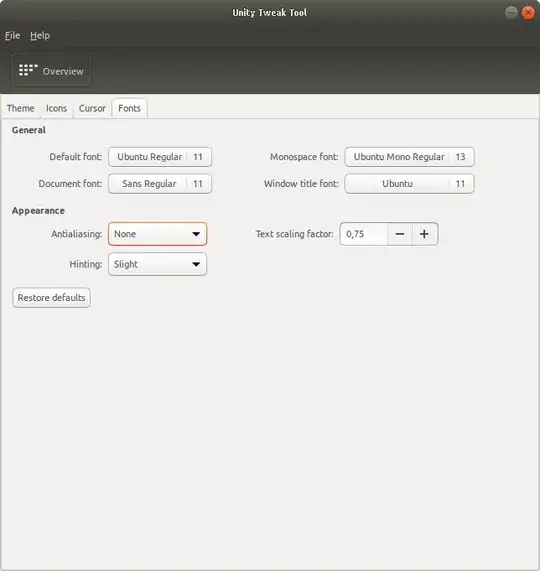
What program or configuration is responsible for making fonts sharp and clear?
Both systems, Microsoft's ClearType and FreeType, use
Subpixel Rendering, which utilises the RGB subpixels on your TFT display to make the glyphs appear sharper and improve their form.
One important difference is that Windows tries much harder to fit the font into 'the pixel grid', which is why it looks 'sharper', at the expense of the glyphs' contours:
ClearType also uses very heavy font hinting to force the font to fit into the pixel grid. This increases edge contrast and readability of small fonts at the expense of font rendering fidelity and has been criticised by graphic designers for making different fonts look similar.
from Wikipedia's ClearType
One approach is:
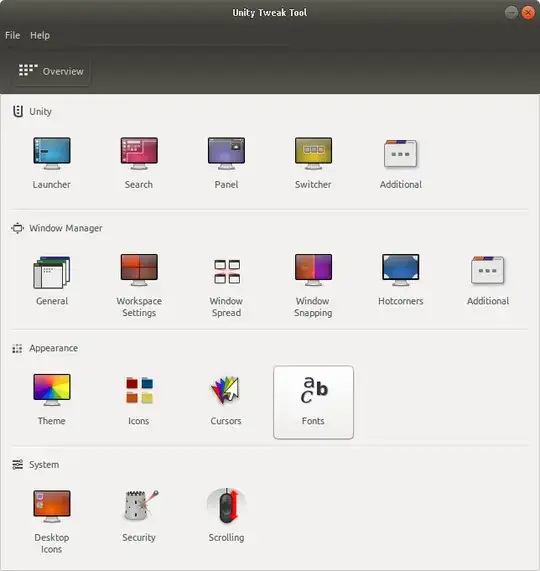
Under Appearance you will find Antialiasing (none/Grayscale/RGBA).
Another approach is:
2. Search for "antialiasing"
3. If you cannot find it, the setting is under:
org/gnome/settings-daemon/plugins/xsettings
And there you will find the antialiasing.